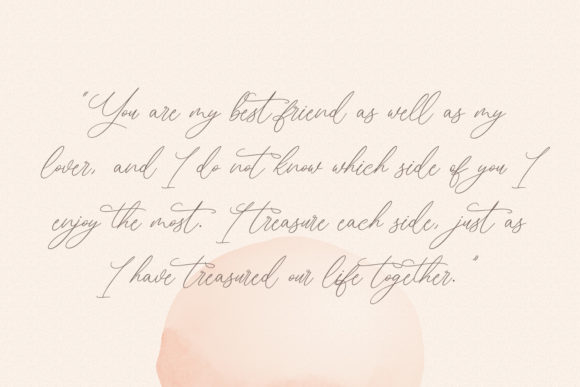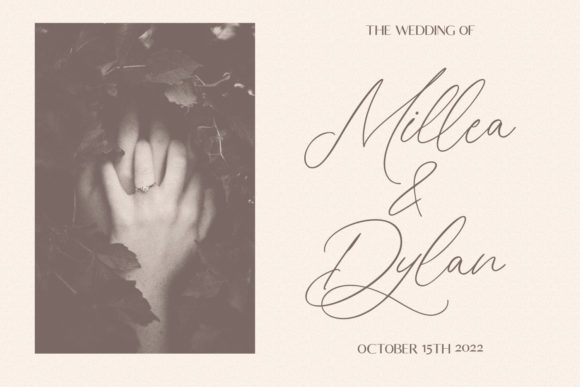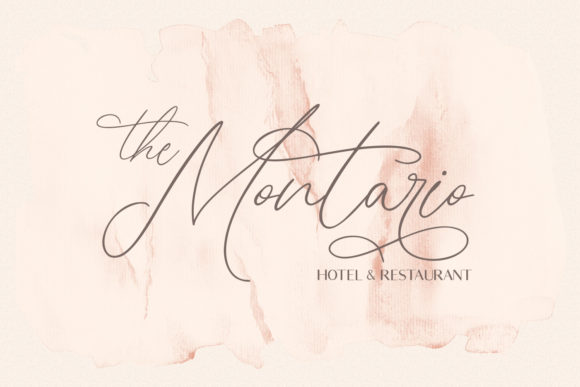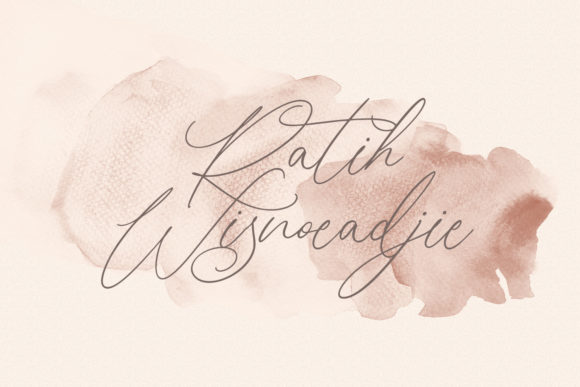
About Norlandy Font
Norlandy is a delicate and slim handwritten font. Its distinct and well balanced letters make this font a masterpiece. Fall in love with its incredibly versatile style and use it to create spectacular designs!